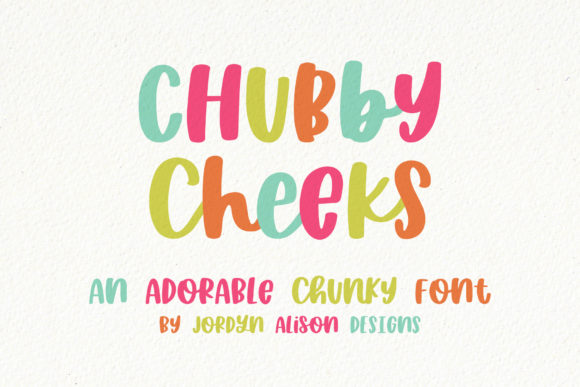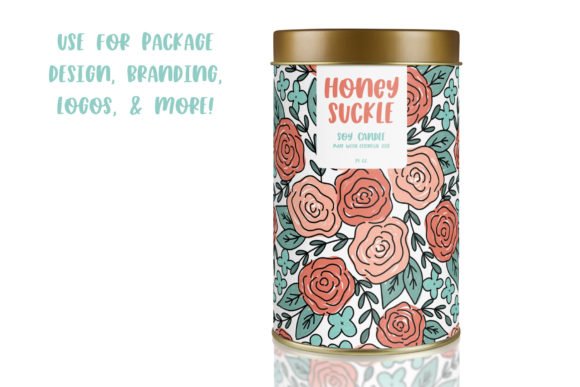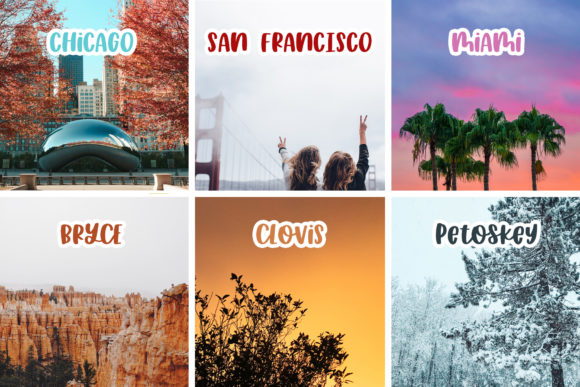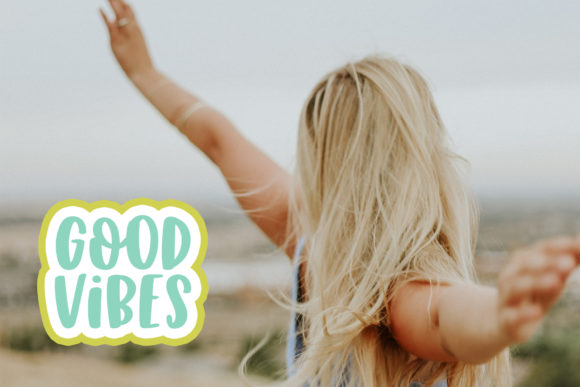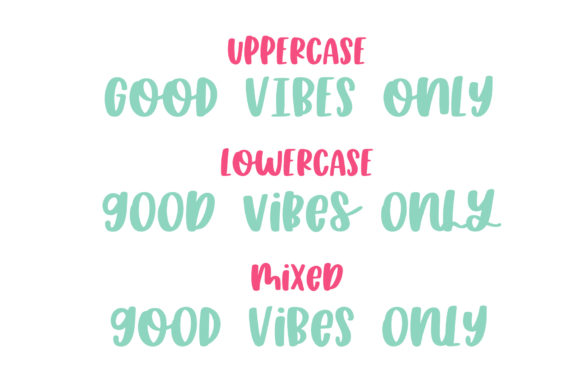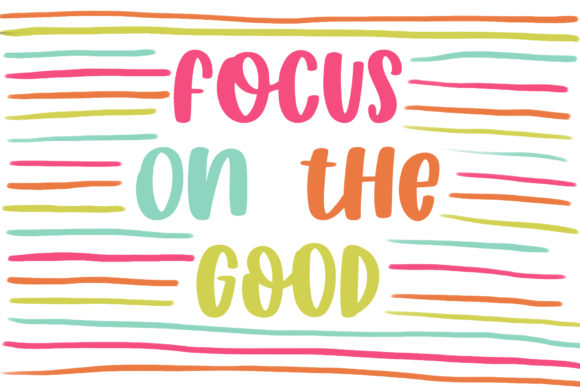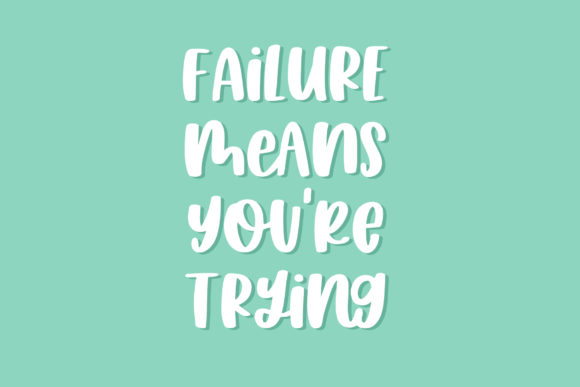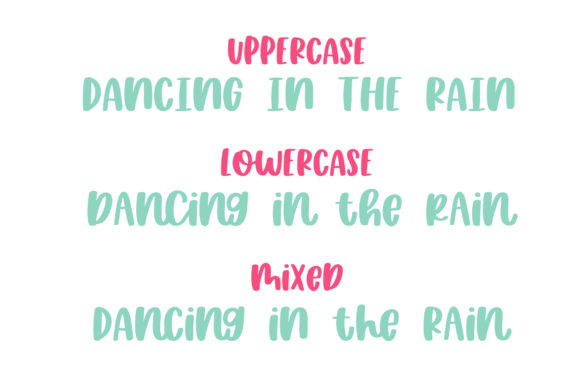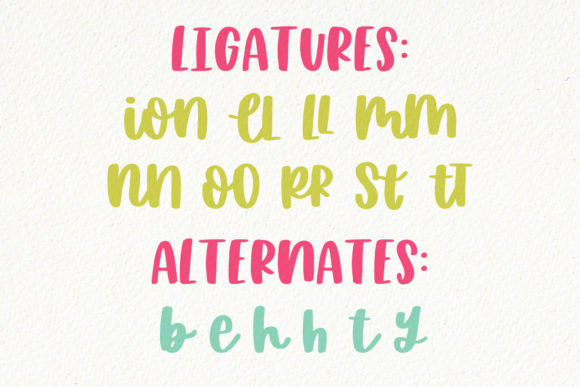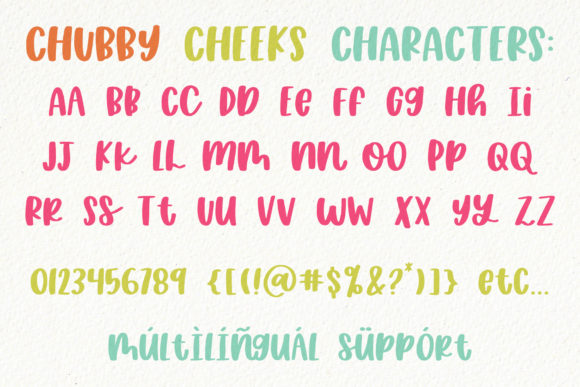
Chubby Cheeks Font
About Chubby Cheeks Font
Chubby Cheeks is a fun hand-lettered handwritten font. It’s thick, which makes it perfect for cutting with vinyl, paper, or the like. Use it for branding, social media posts, SVG designs, and much more.